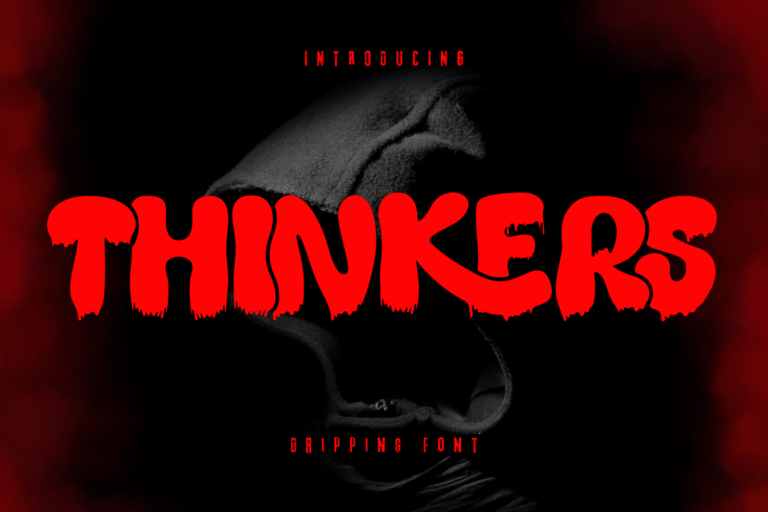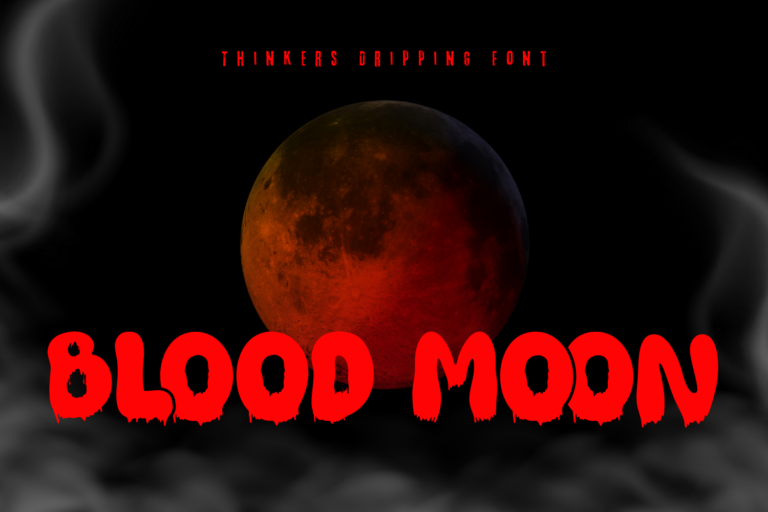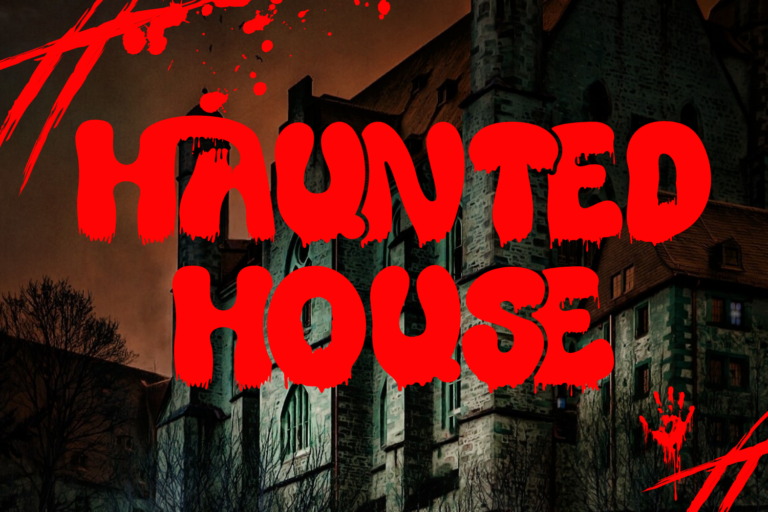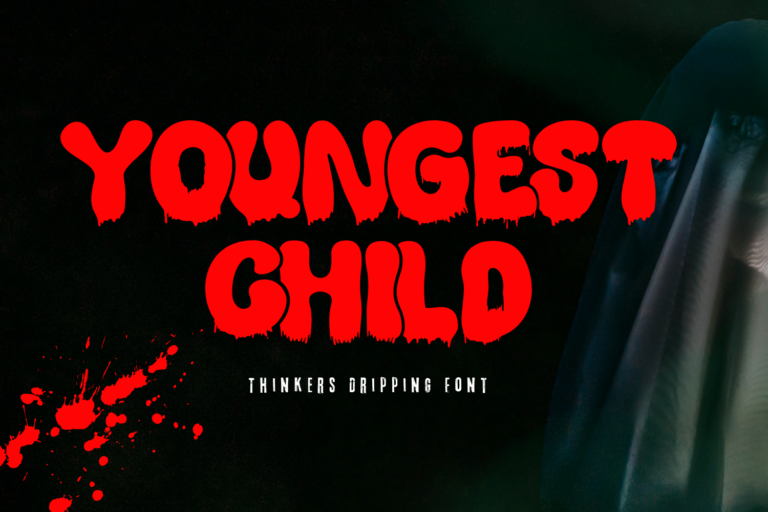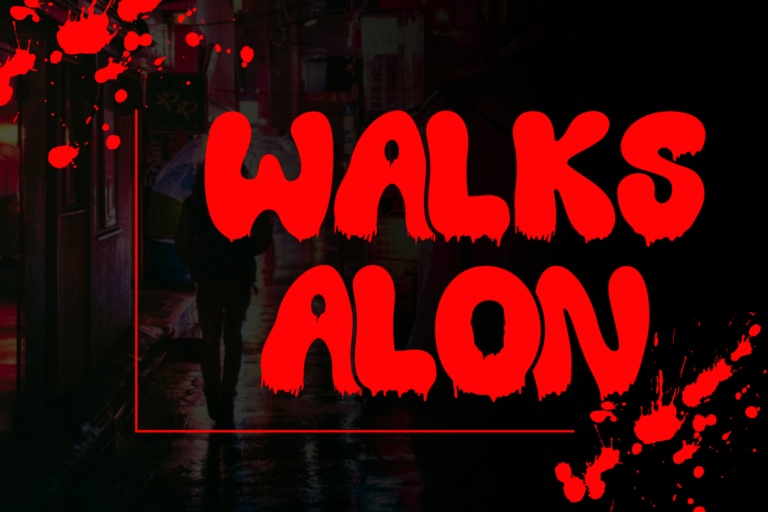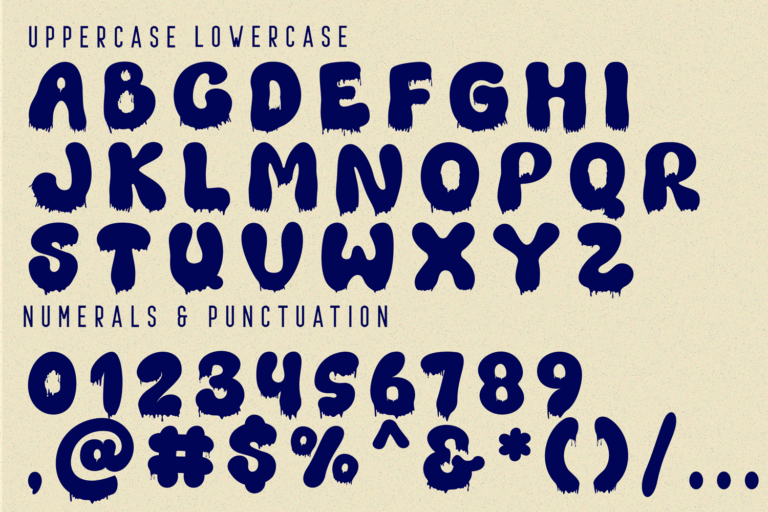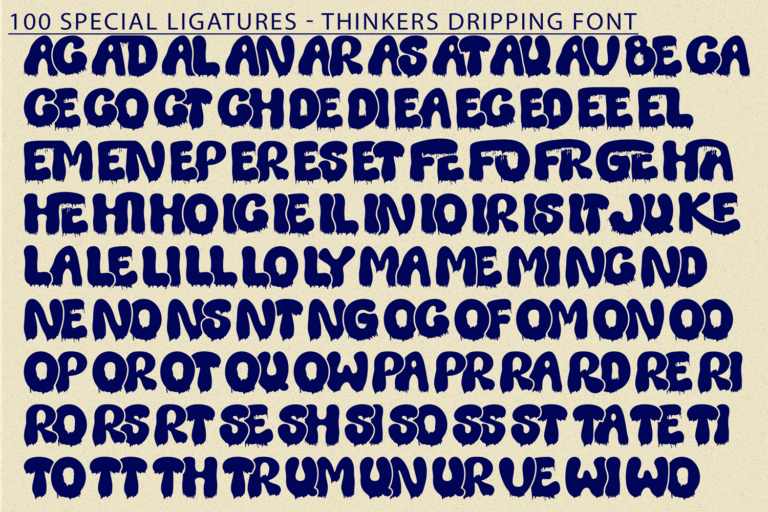
Thinkers Dripping Font is a bold dripping display font that oozes personality — literally. Inspired by vintage horror posters and Halloween classics, this font melts down your screen with playful menace and eerie charm. Each character looks like it’s been painted in thick liquid, bleeding into the next, creating a highly expressive and unforgettable visual style.
Whether you’re designing a spooky party invitation, a haunted house sign, or a thriller movie poster, Thinkers Dripping delivers that gooey, gruesome energy you’re looking for.
Font Features:
• Uppercase
• Over 100 stylistic ligatures for custom modular combinations
• Accented Characters
• Organic drip terminals and smooth blob-like curves
• Ideal for horror, Halloween, slasher films, rock album covers, or bold branding
AC AD AL AN AR AS AT AU AV BE CA CE CH CO CT DE DI EA EC ED EE EL EM EN EP ER ES ET FE FO FR GE HA HE HI HO IE IC IL IN IO IR IS IT JU KE LA LE LI LL LO LY MA ME MI NC ND NE NG NO NT NS OC OF OM ON OO OP OR OT OU OW PA PR RA RD RE RI RO RS RT SE SH SI SO SS ST TA TE TH TI TO TR TT UM UN UR VE WI WO
Thinkers Dripping Font